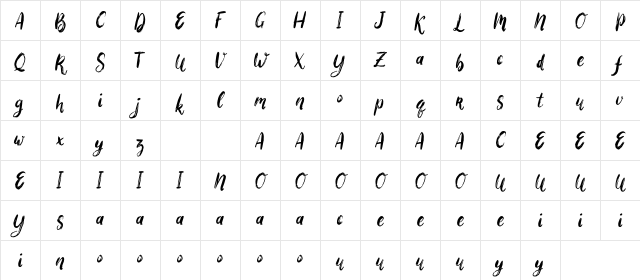
Bigarus Regular Free Font
Bigarus Regular
Designer: Sigit Dwipa
Design Context for Bigarus
Bigarus is a composed and adaptable typeface that performs quietly and consistently across a wide range of design contexts.